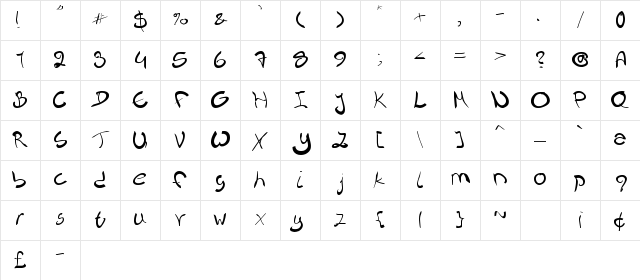
Nieknique Regular Free Font
Nieknique Regular
Design Context for Nieknique
Nieknique is a composed and adaptable typeface that performs quietly and consistently across a wide range of design contexts.
Pro Tip: Use Nieknique in both headline and body roles to test its range before committing to a single application.